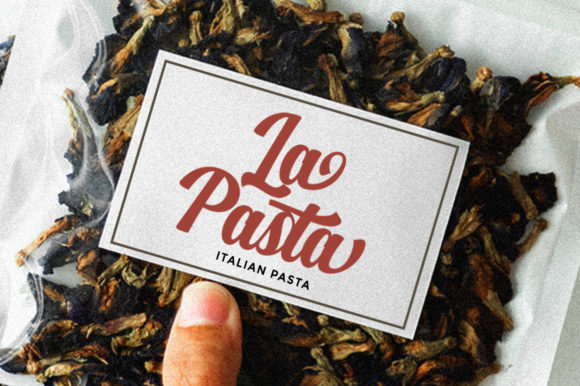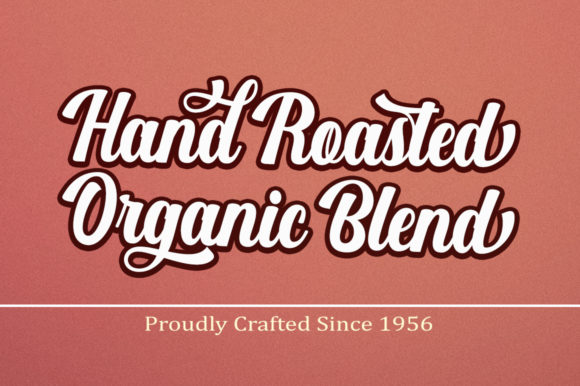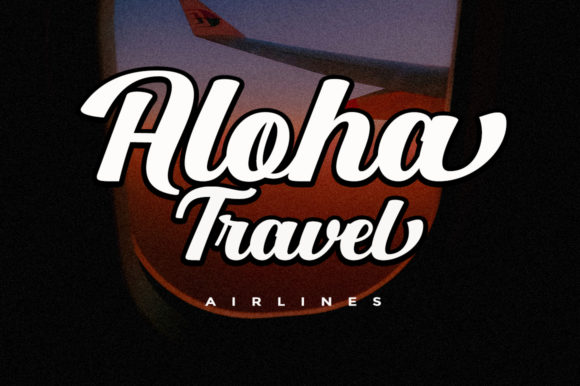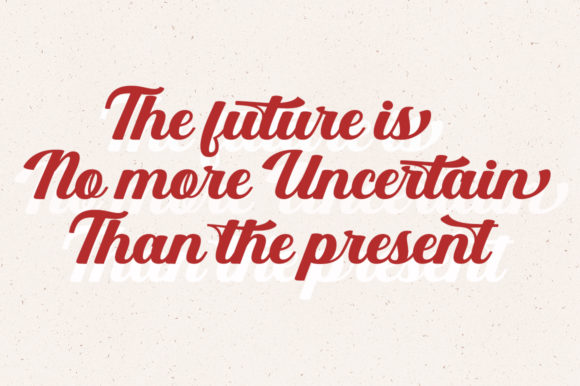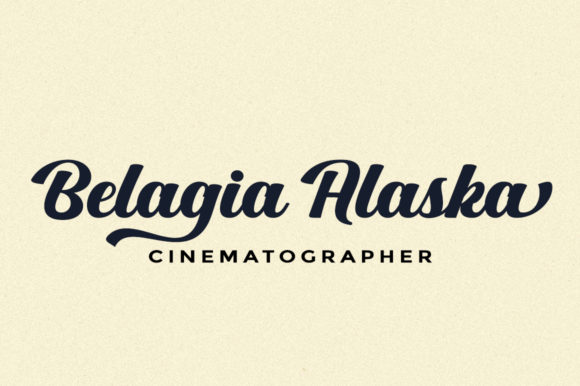
Introducing Budgeta Font: The Perfect Choice for Elegant Designs
Are you a designer or crafter looking for a font that exudes charm and elegance? Look no further than Budgeta Font! This beautiful handwritten font is perfect for a variety of design projects, from wedding invitations and thank you cards to quotes, greeting cards, logos, and business cards.
A Font that Combines Charm and Elegance
Budgeta Font is a stunning script font that feels equally charming and elegant. Its unique blend of classic and modern elements makes it perfect for designers who want to add a touch of sophistication to their designs. Whether you’re creating a wedding invitation or a business card, Budgeta Font is sure to impress.
Key Features of Budgeta Font
So, what makes Budgeta Font so special? Here are just a few of its key features:
- PUA Encoded: Budgeta Font is PUA encoded, which means you can access all of the glyphs and swashes with ease. This makes it easy to customize your designs and add your own personal touch.
- Varying Baseline: Budgeta Font features a varying baseline, which gives it a natural, handwritten feel. This makes it perfect for designs that need to look personal and authentic.
- Smooth Lines: The lines in Budgeta Font are smooth and flowing, which makes it easy to read and beautiful to look at.
- Gorgeous Glyphs: Budgeta Font comes with a range of gorgeous glyphs, including alternates, swashes, and ligatures. These glyphs allow you to add extra flair to your designs and make them truly unique.
- Stunning Alternates: Budgeta Font also features stunning alternates, which give you even more options for customizing your designs.
Uses for Budgeta Font
Budgeta Font is a versatile font that can be used for a wide range of design projects. Here are just a few ideas to get you started:
- Wedding Invitations: Budgeta Font is perfect for wedding invitations, thank you cards, and other wedding-related designs.
- Business Cards: Add a touch of elegance to your business cards with Budgeta Font.
- Quotes and Greeting Cards: Budgeta Font is great for creating inspirational quotes, greeting cards, and other designs that need a personal touch.
- Logos: Use Budgeta Font to create a beautiful, handwritten logo for your business or brand.
Why Choose Budgeta Font?
So, why should you choose Budgeta Font for your next design project? Here are just a few reasons:
- Elegant and Charming: Budgeta Font is a beautiful, elegant font that adds a touch of charm to any design.
- Easy to Use: Budgeta Font is PUA encoded, which makes it easy to access all of the glyphs and swashes.
- Versatile: Budgeta Font can be used for a wide range of design projects, from wedding invitations to business cards.
- Unique: Budgeta Font is a unique font that will help your designs stand out from the crowd.
In conclusion, Budgeta Font is a beautiful, elegant font that is perfect for designers and crafters who want to add a touch of sophistication to their designs. With its PUA encoding, varying baseline, smooth lines, gorgeous glyphs, and stunning alternates, Budgeta Font is a versatile font that can be used for a wide range of design projects. Whether you’re creating a wedding invitation, business card, or quote, Budgeta Font is sure to impress.